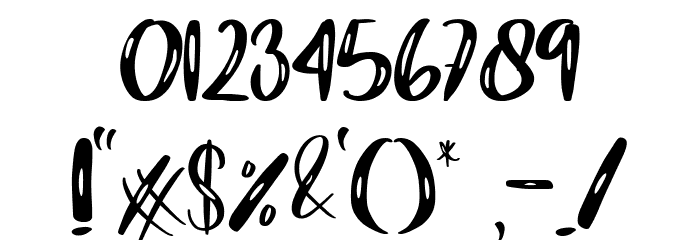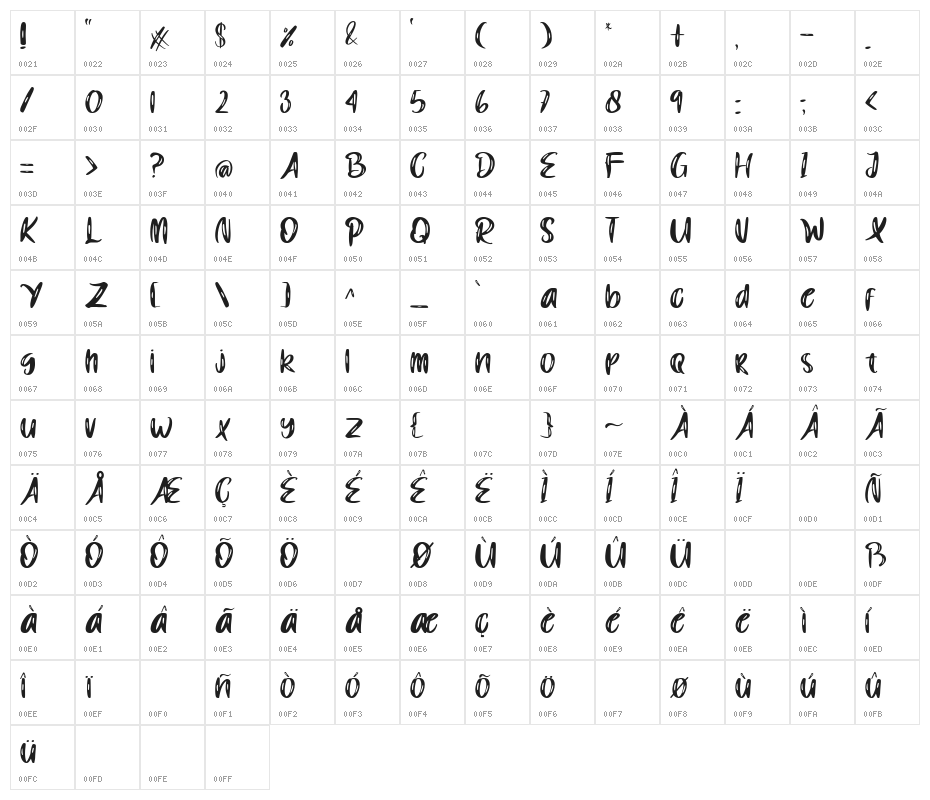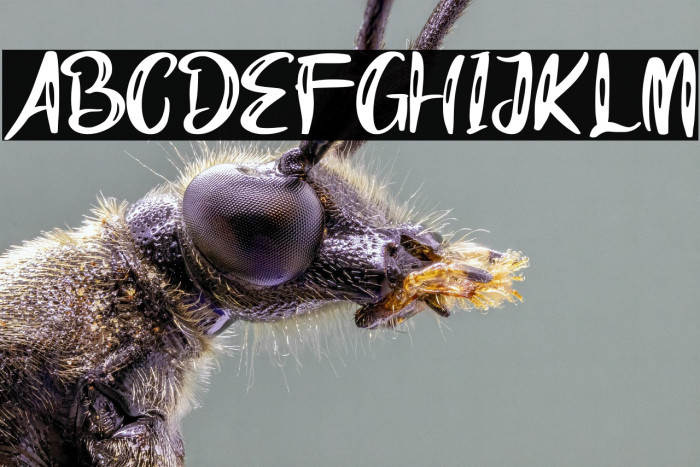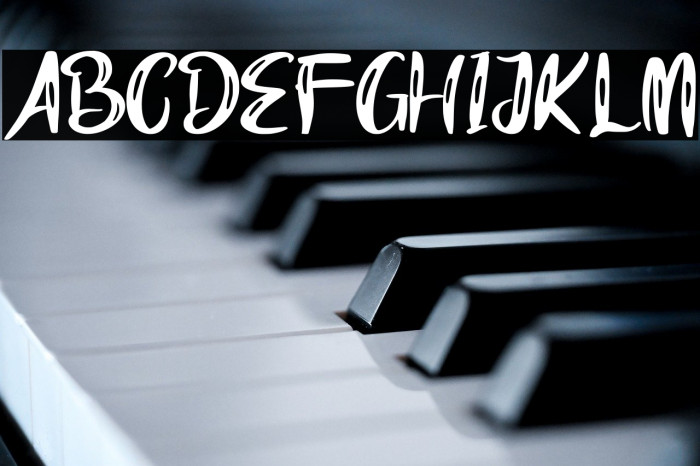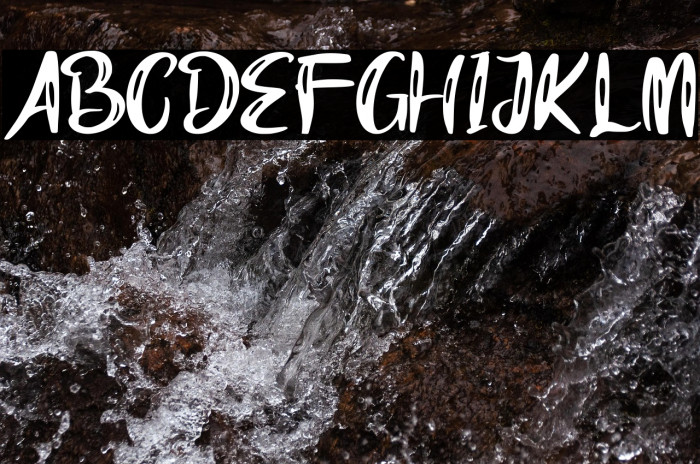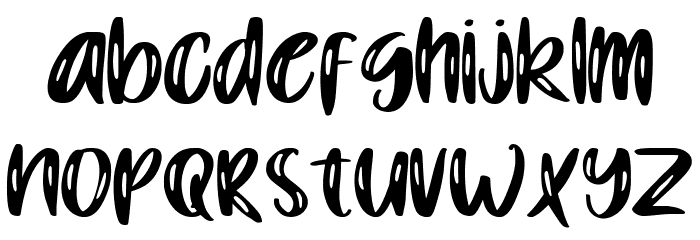
Funny Planet Font
Funny Planet Description
This playful and energetic font features bold, sweeping strokes that give it a lively and dynamic appearance. The characters are crafted with a sense of movement, making each letter appear as though it is dancing across the page. The uppercase and lowercase letters maintain a consistent style, with rounded edges and a slightly irregular baseline that adds to its whimsical charm. Numbers and special characters are designed with the same playful flair, ensuring a cohesive look throughout. This font is perfect for projects that require a fun and informal tone.